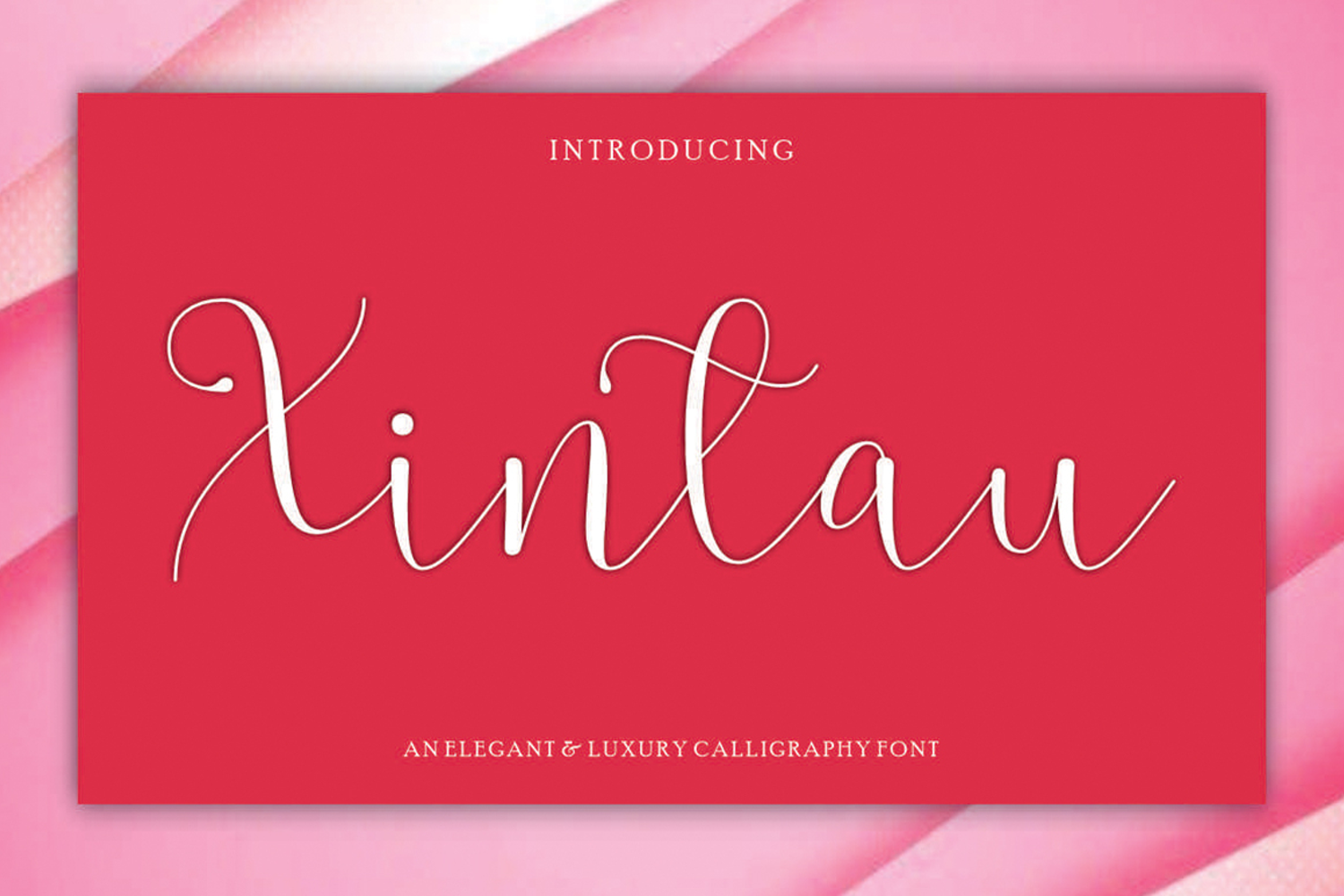
Xintau
“Xintau” is a font designed in a handwritten style, often characterized by flowing strokes and a casual appearance. It usually mimics the look of cursive handwriting, with varying stroke widths and letter shapes to create a natural, organic feel. Fonts may feature decorative elements such as swashes or straps to enhance aesthetic appeal.
Xintau Alive can be used for a variety of design purposes, including invitations, signage, branding, and more, that require a expressive touch.